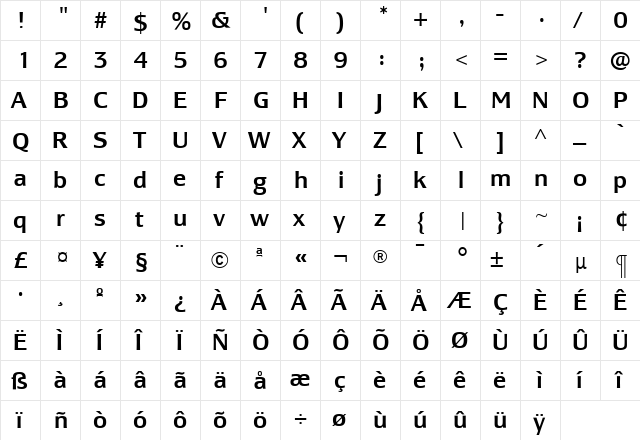
LesmoreMedium Roman
Design Context for LesmoreMedium Typeface
LesmoreMedium offers clean, dependable letterforms without strong stylistic allegiance, making it a practical choice for designers who need flexibility.